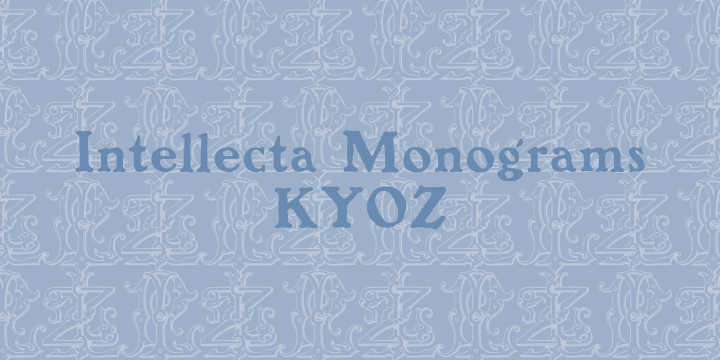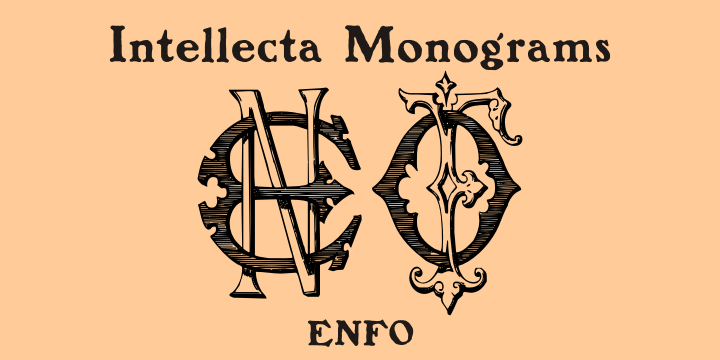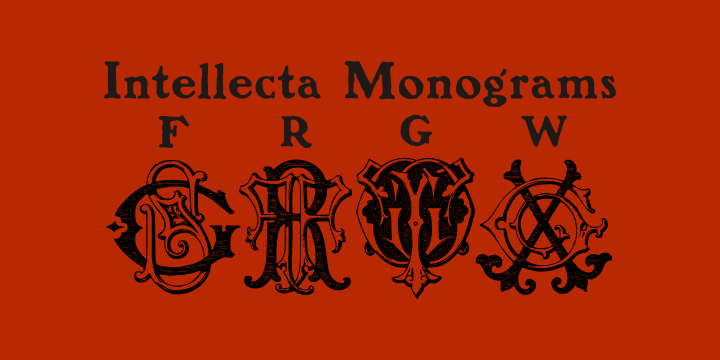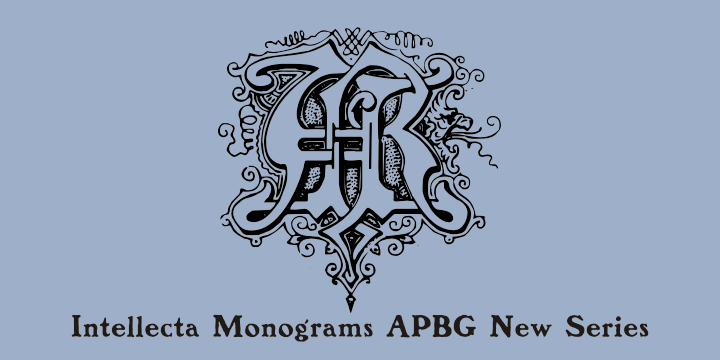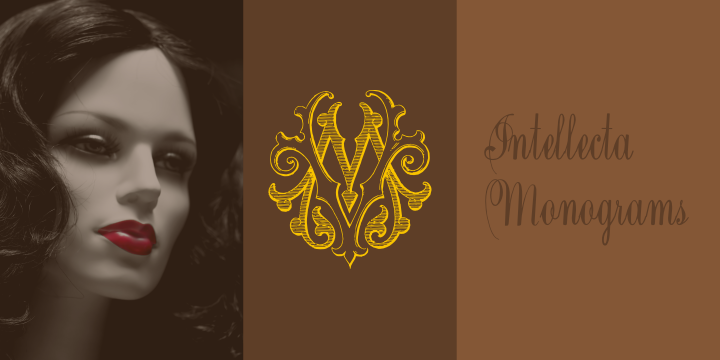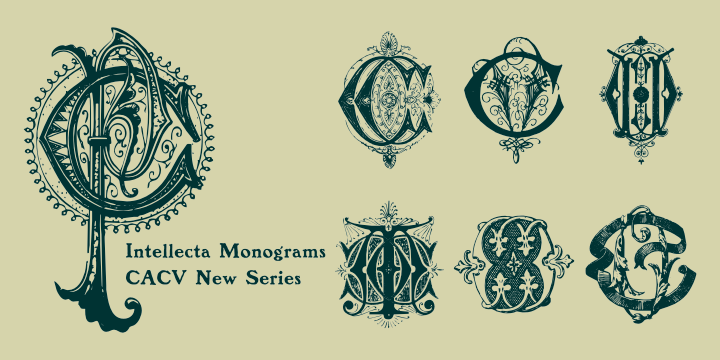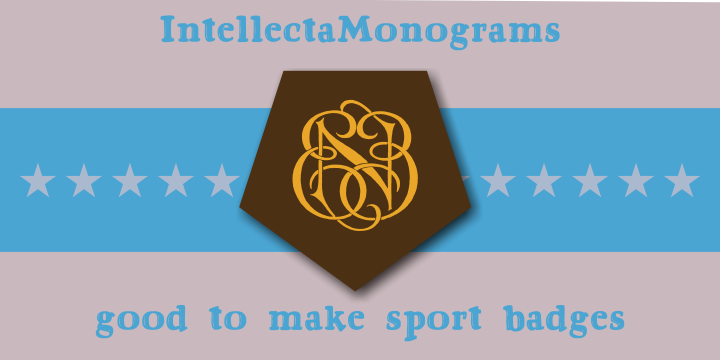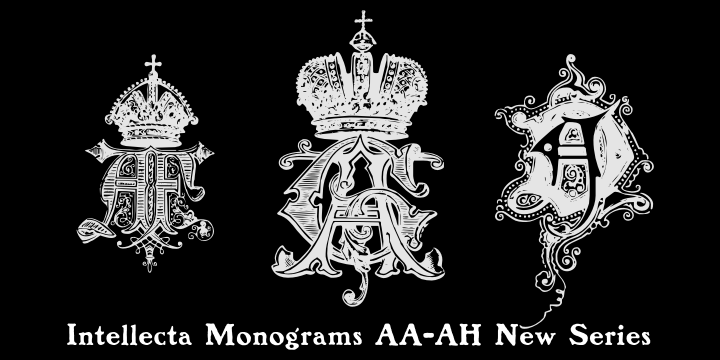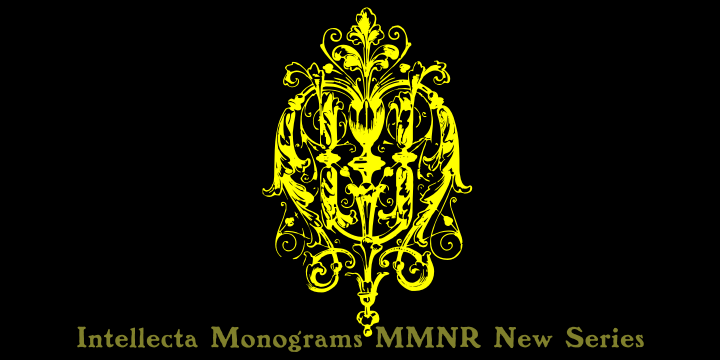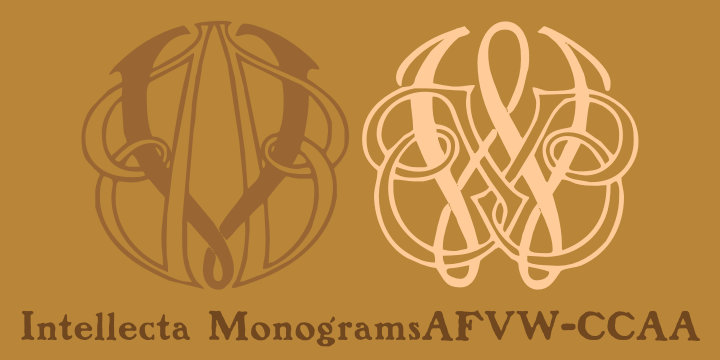
Intellecta Monograms is a monograms font family. This typeface has thirty-nine styles and was published by Intellecta Design.
IntellectaMonograms is an extensive collection of ancient intrincate monograms, of all kinds, mainly Victorian style.